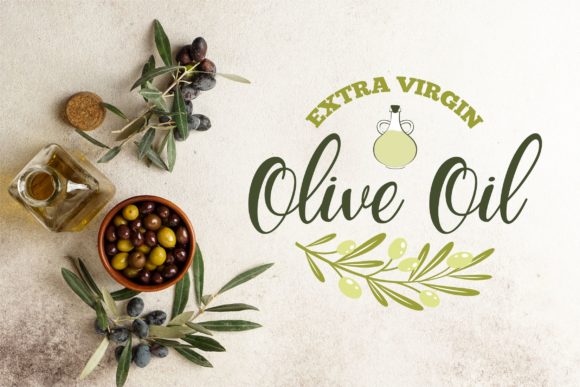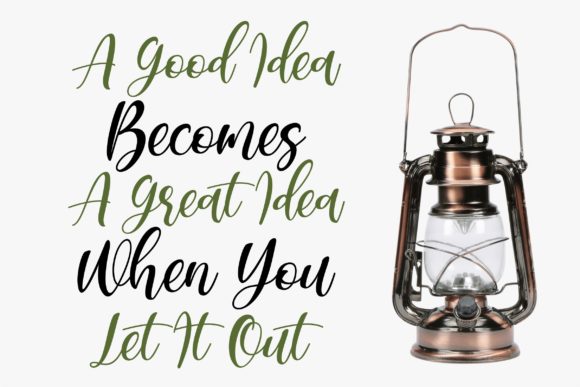
Coffee Matcha Font
db-ku.com - Script & Handwritten -- Coffee Matcha is a sweet and cursive handwritten font. This gentle font will look gorgeous on a variety of design ideas. It will add a joyful and romantic touch to each of your projects!